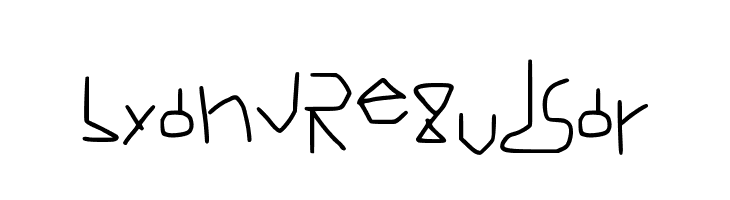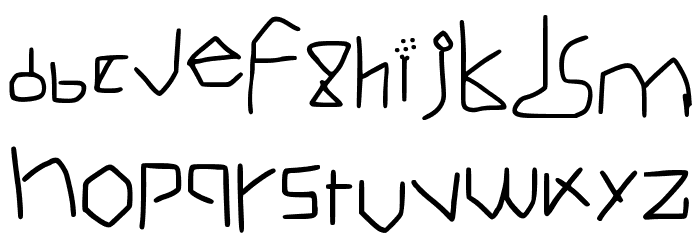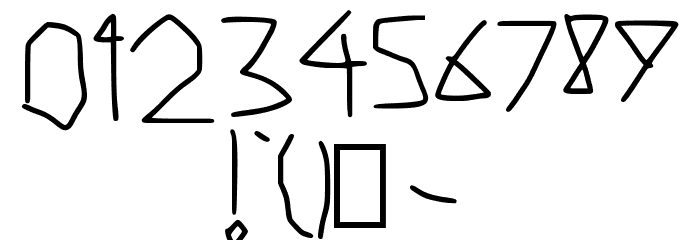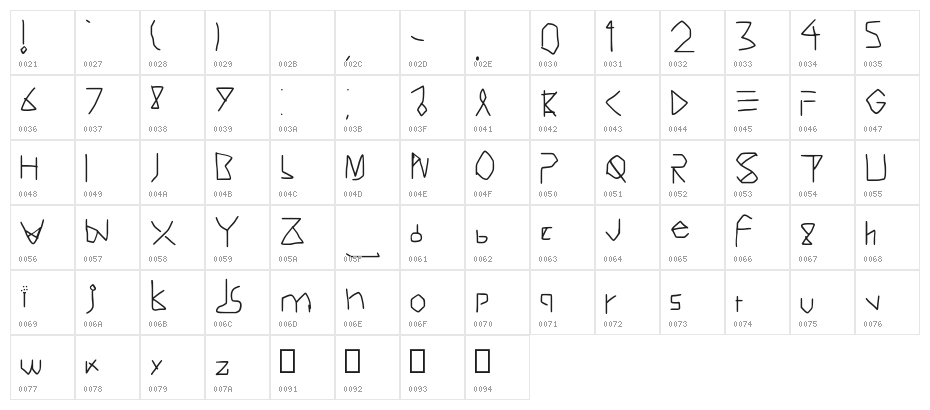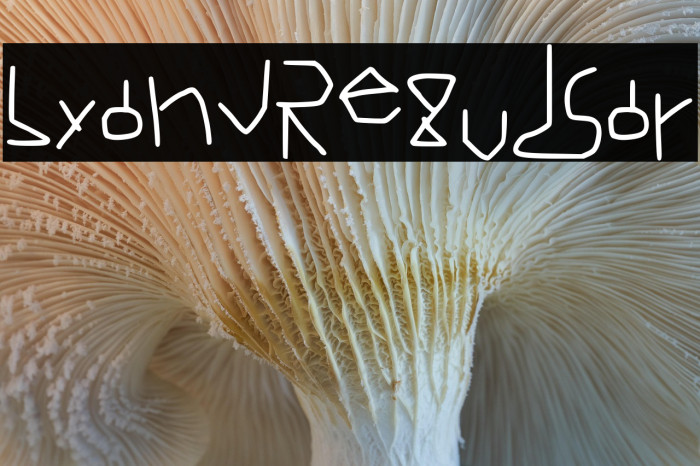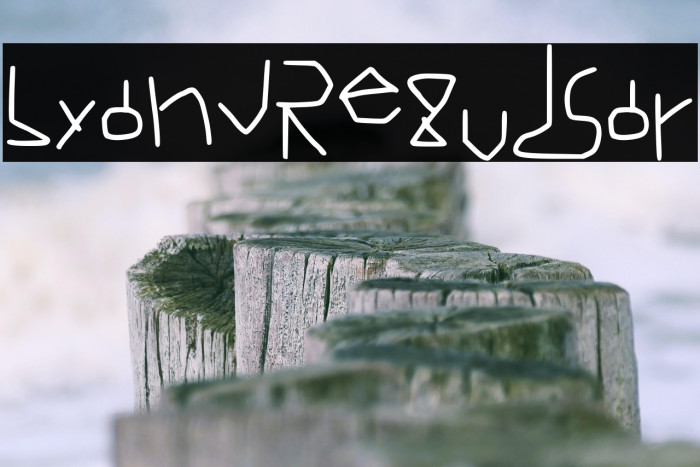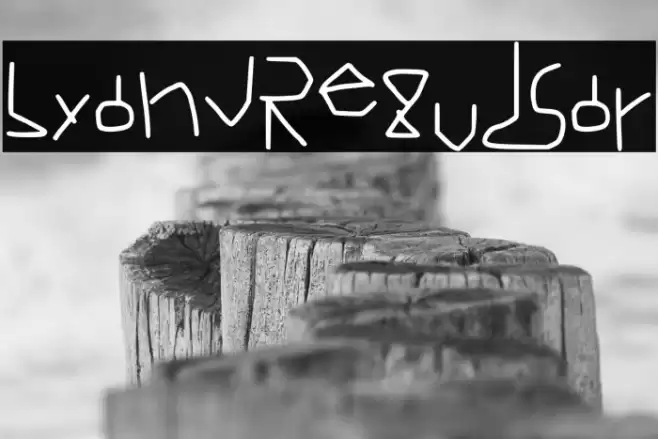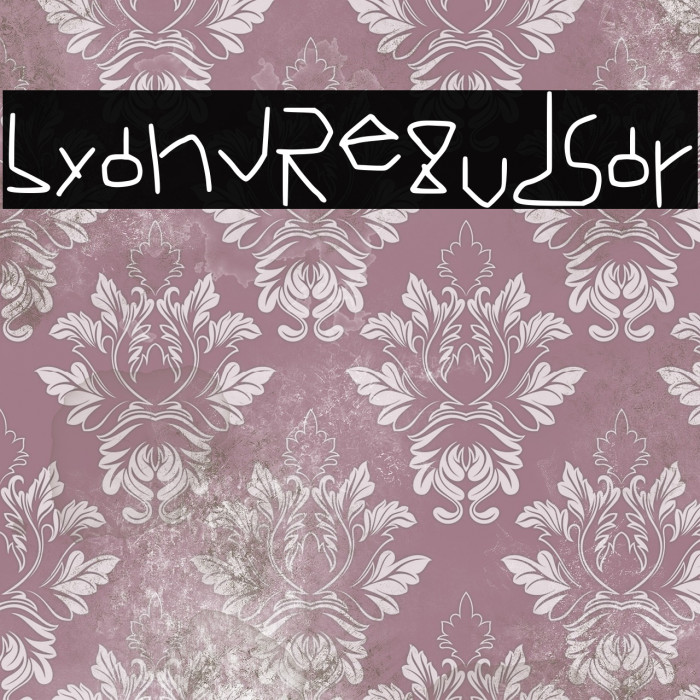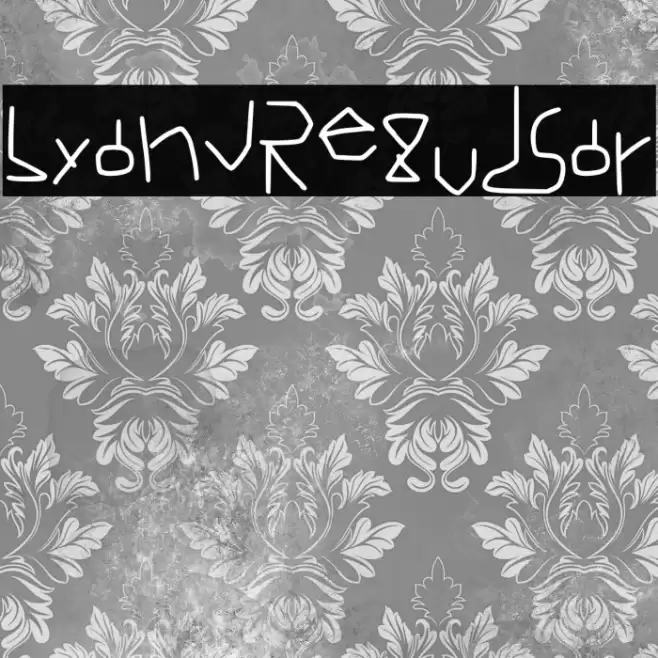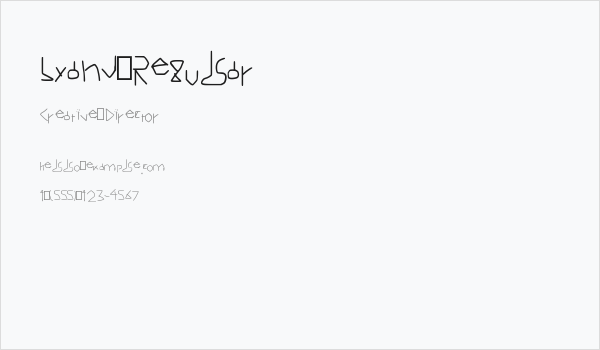
( Dysa is a Sephraxian Support font. This font can be both used for ornate logo design and whiteboard-inspired art, or also for giving your next hobby project something that makes your friends go mad and zany. FREE )
Lyand Regular Font